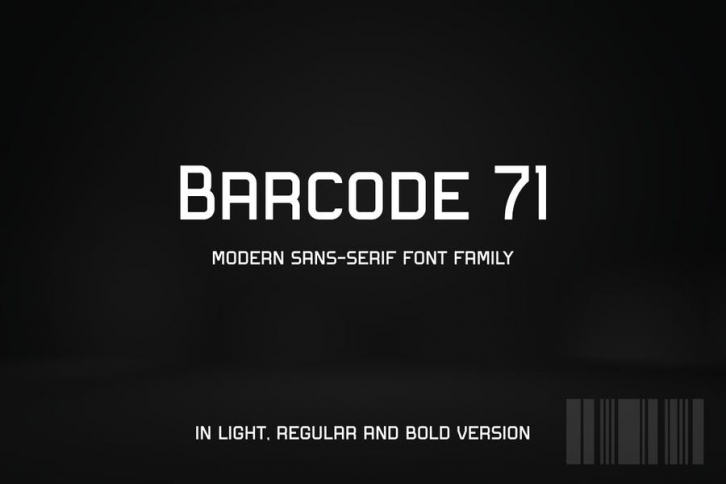
If you are looking for a modern sans-serif font, meet BARCODE71
Barcode71 is perfect for any works, such as card, book title, headline of news, banner, flyer, stationery and many more. It also can be used in large-scale work.
This font has All caps characters with light, regular and bold version